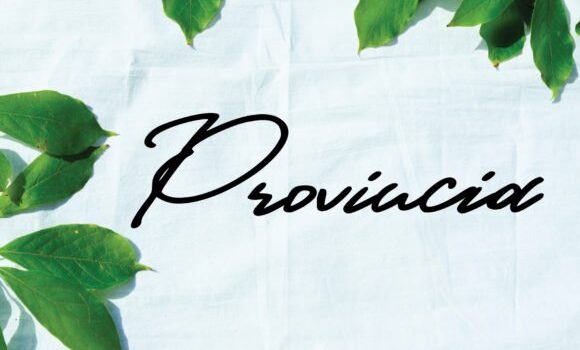
provincia
Provincia Font - Featured Image
Provincia Font – Free Download Introduction to Provincia Font Provincia is a flowing handwritten font, described by an elegant touch, perfect for your favorite projects. 📸 Preview Gallery 4 images 📌 Product Name Provincia Font 👤 Author goodigital 📂 Category